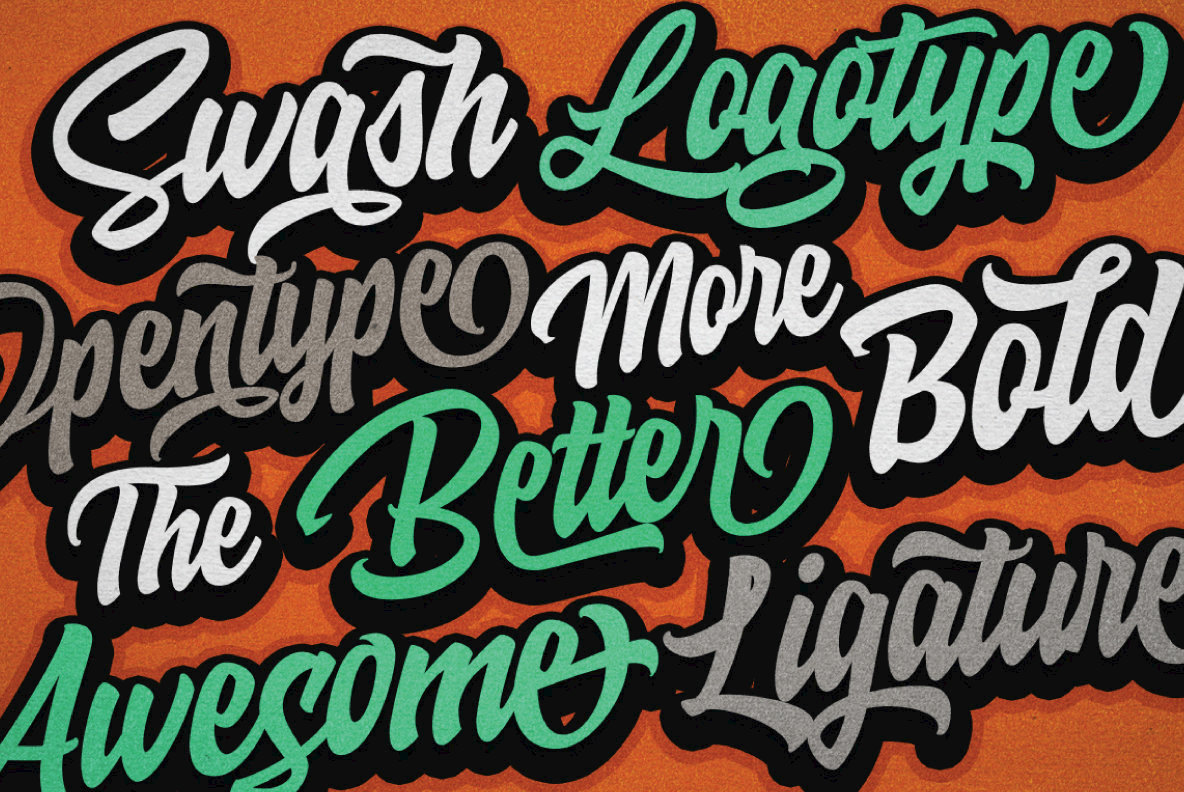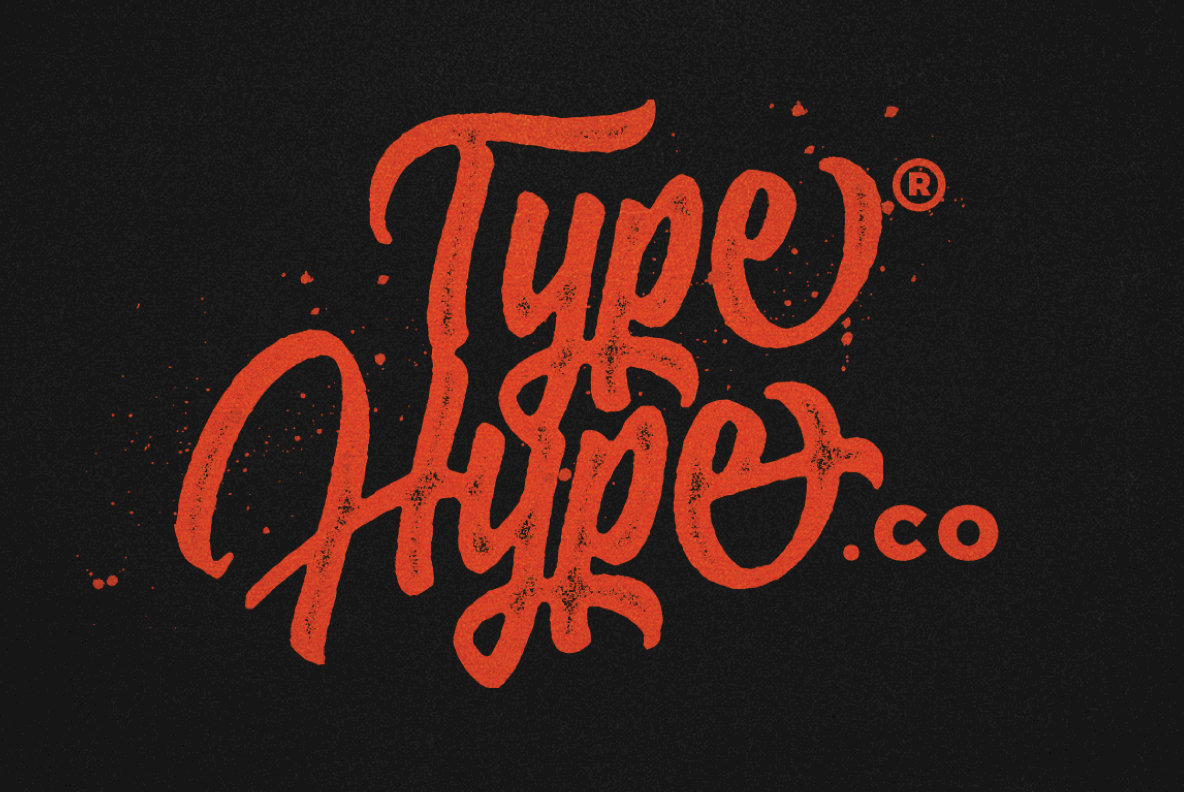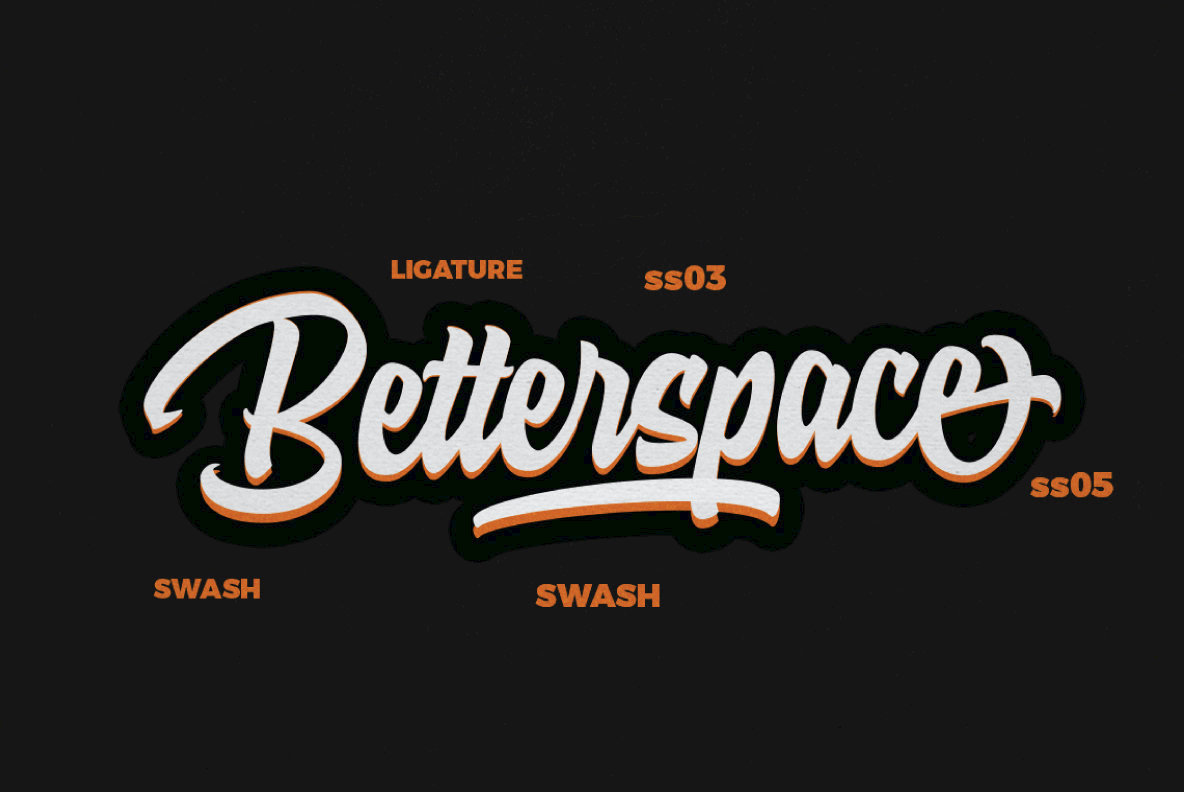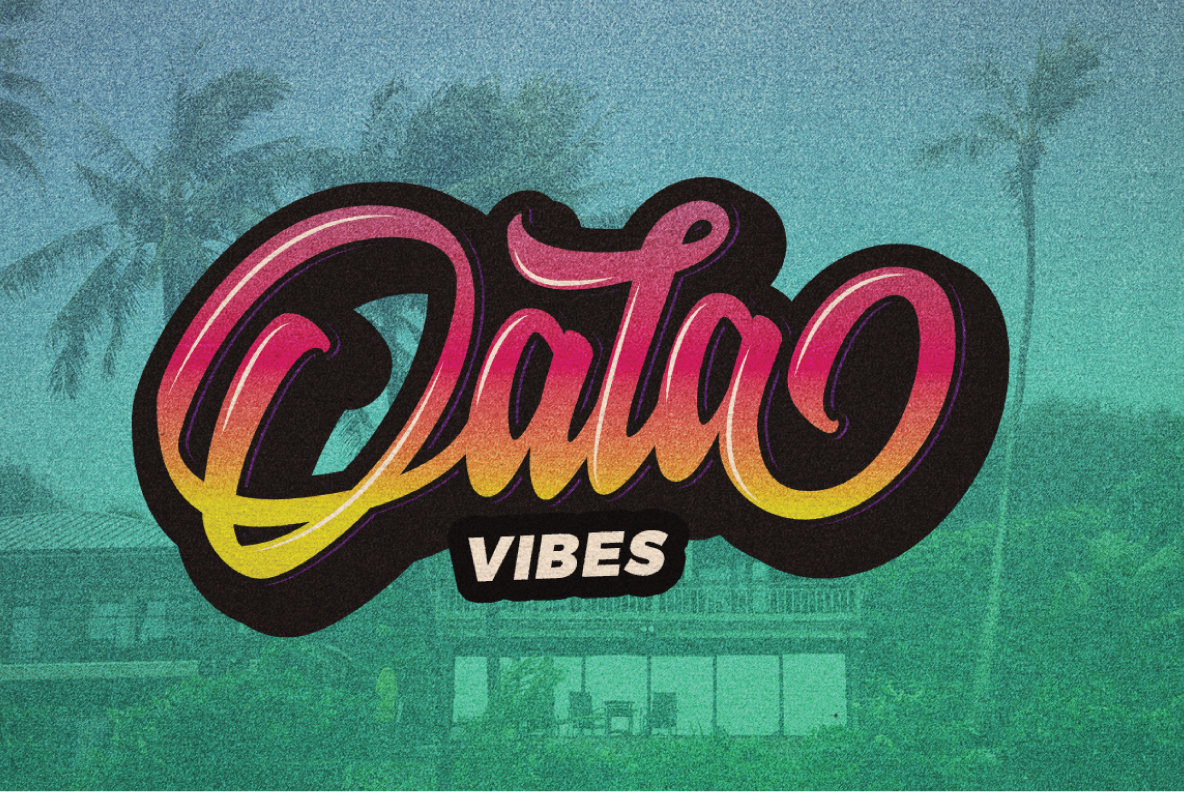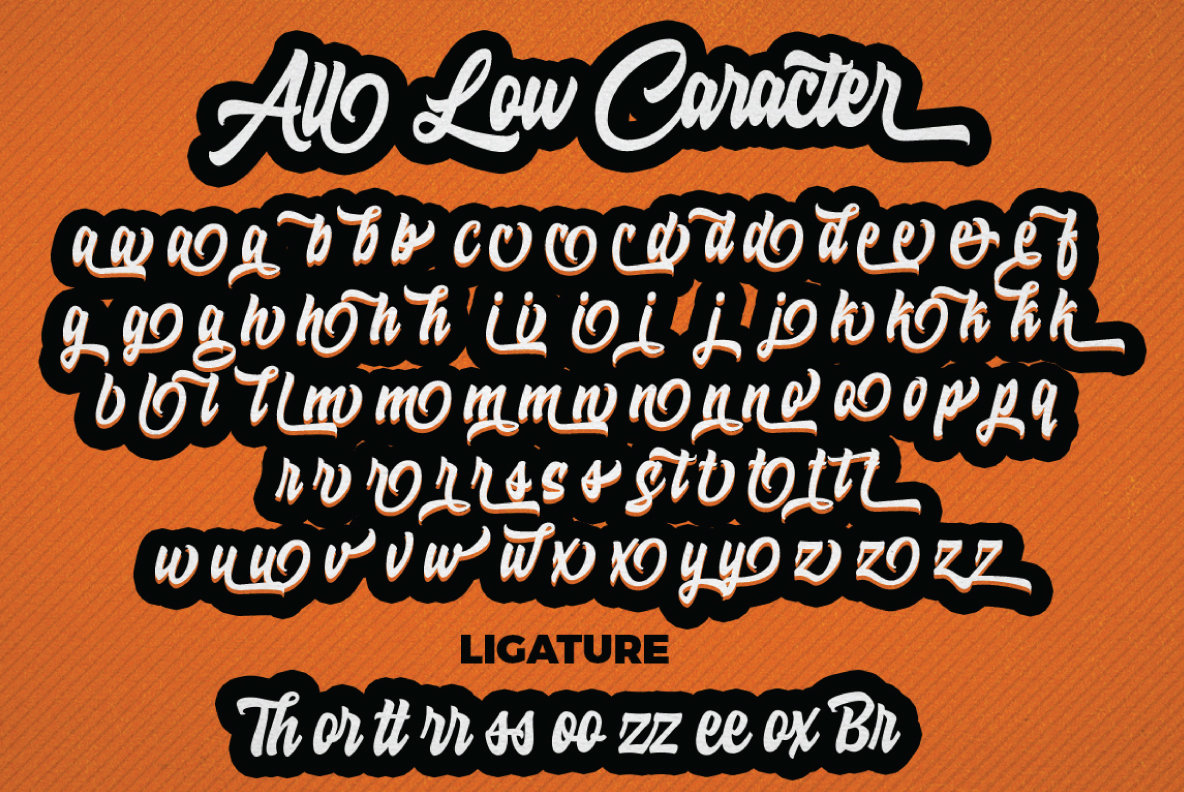
Hoodson Script Font
Drawn from the allure of retro aesthetics, Hoodson Script offers a distinct hand-lettered style that resonates with creative projects. Each curve reflects a unique personality, brought to life through a lively baseline that adds character to any design endeavor. Ideal for logos, handwritten quotes, product packaging, headers, posters, merchandise, social media, and greeting cards, Hoodson Script provides versatility and charm. Enjoy its playful yet sophisticated design in various creative applications.Hoodson Script: A Retro-Inspired Typeface